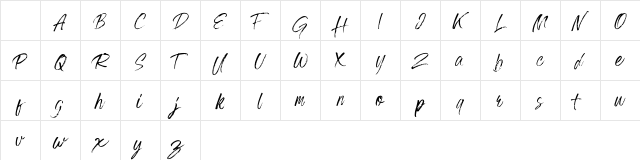
Complete Grumpys Regular glyph index. Displaying only characters natively supported by Grumpys Regular font.
Grumpys is a composed and adaptable typeface that performs quietly and consistently across a wide range of design contexts.